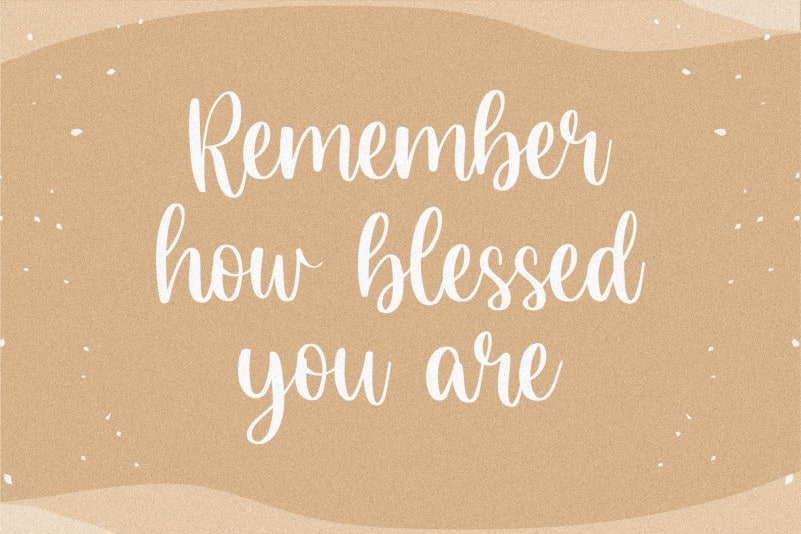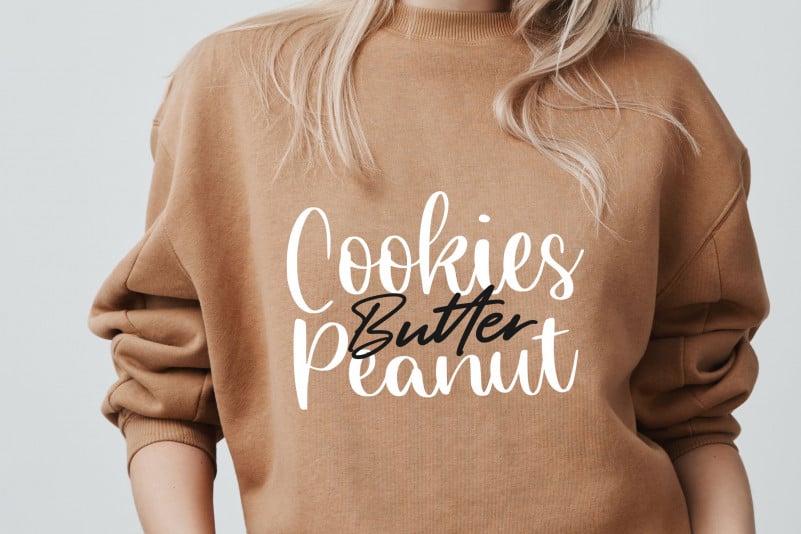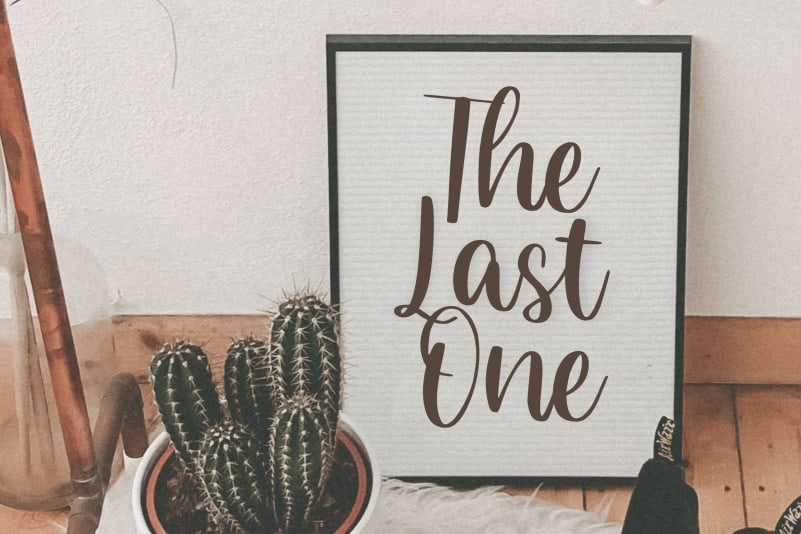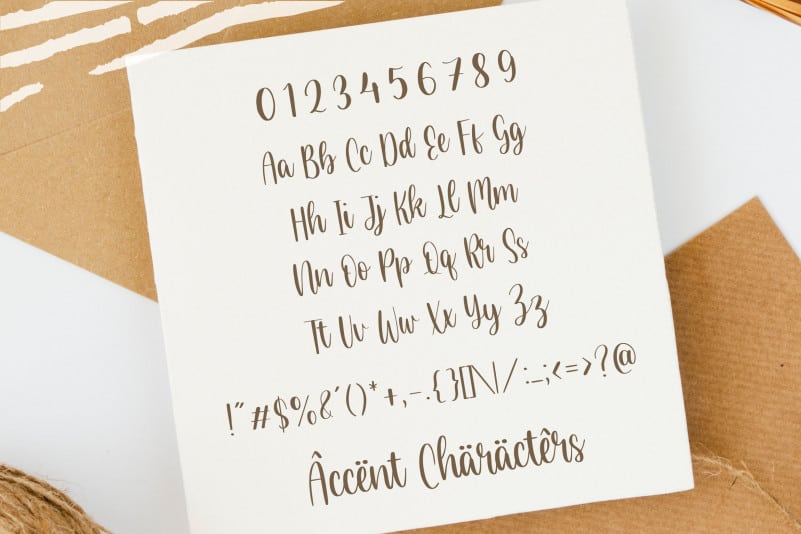
Almond Delight Handwritten Font
Proudly Present, Almond Delight Handwritten Font.
Almond Delight is a Modern Handwritten Font.
It is perfect for product packaging, branding project, megazine, social media, wedding, or just used to express words above the background.